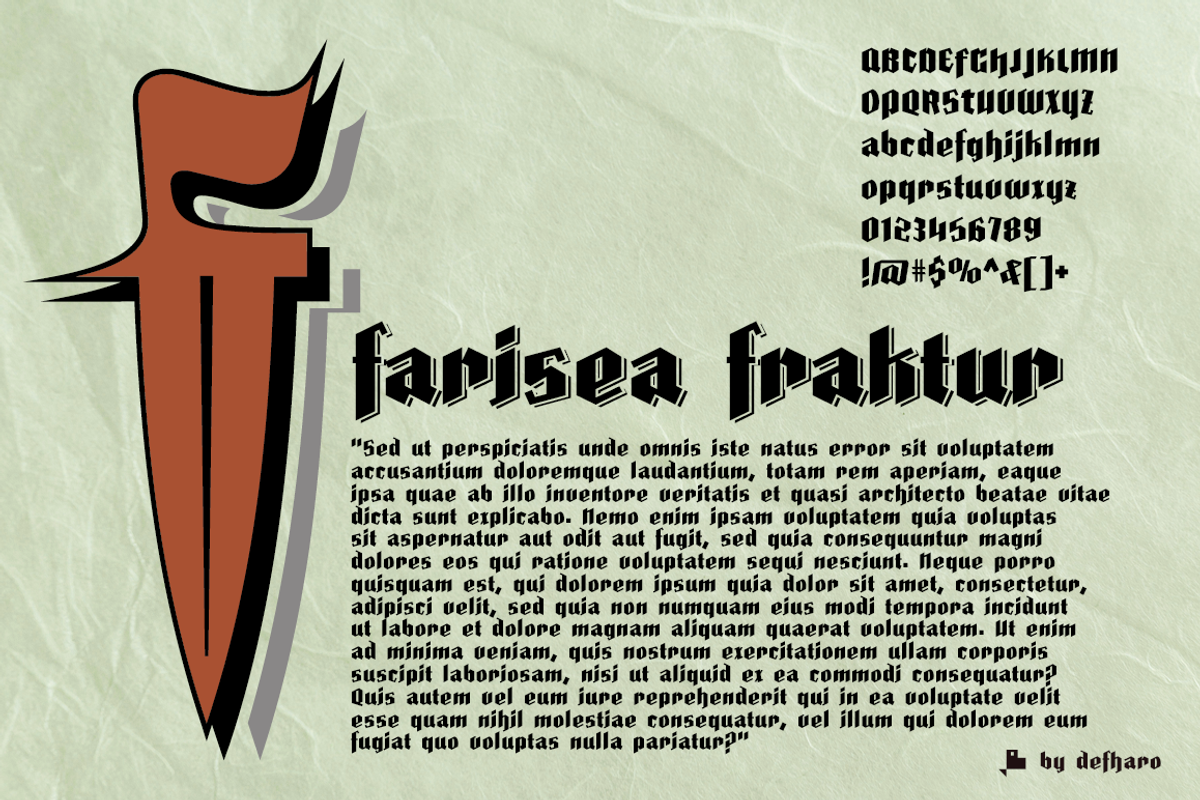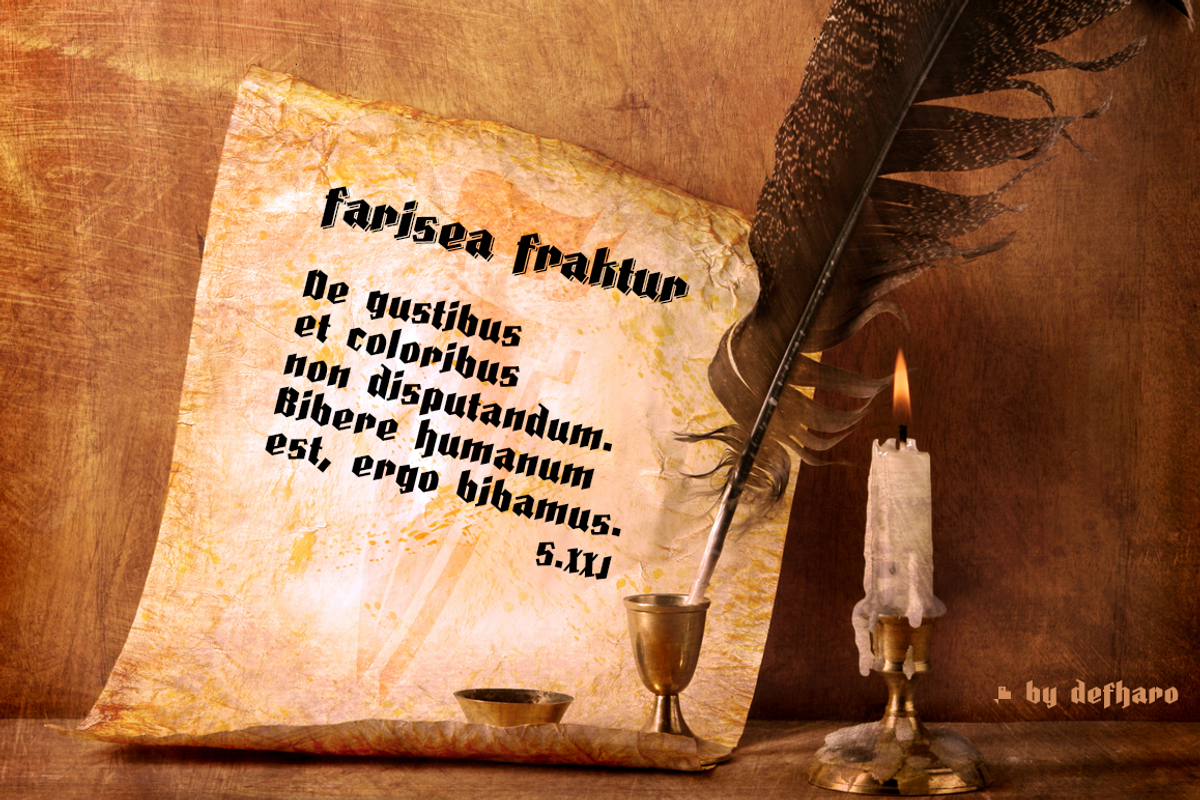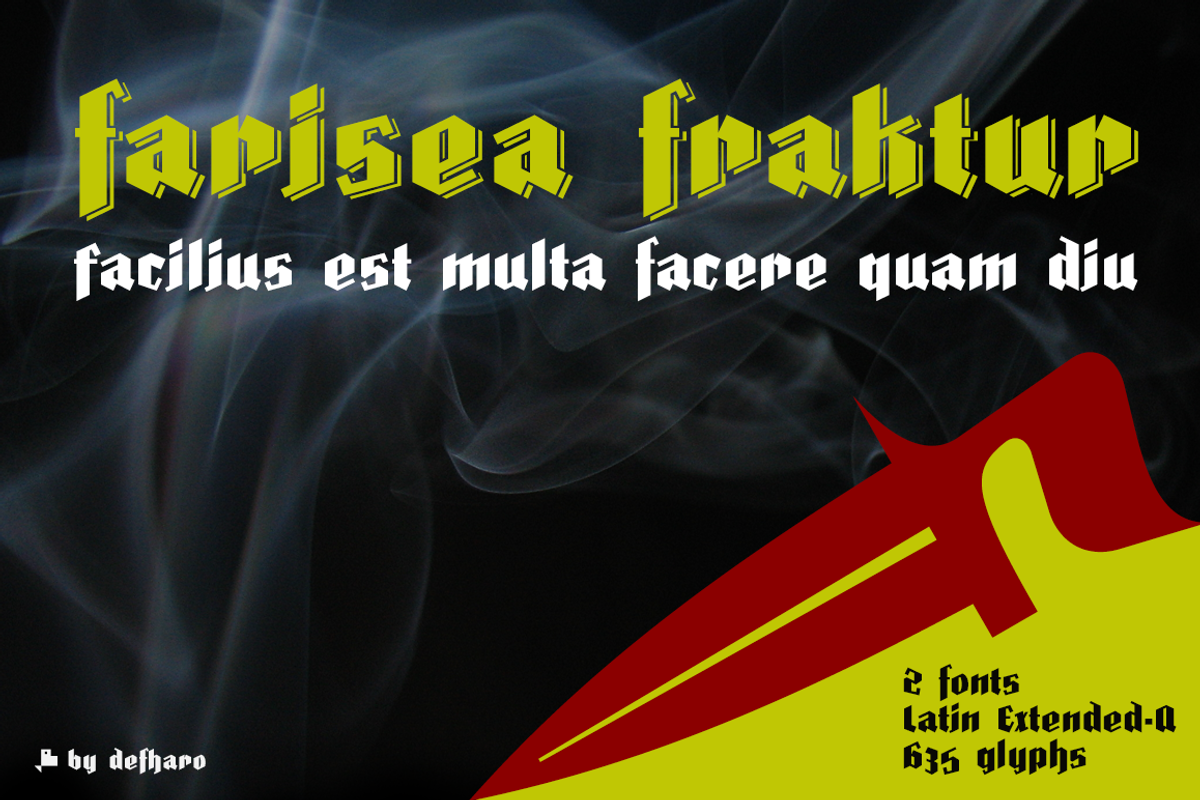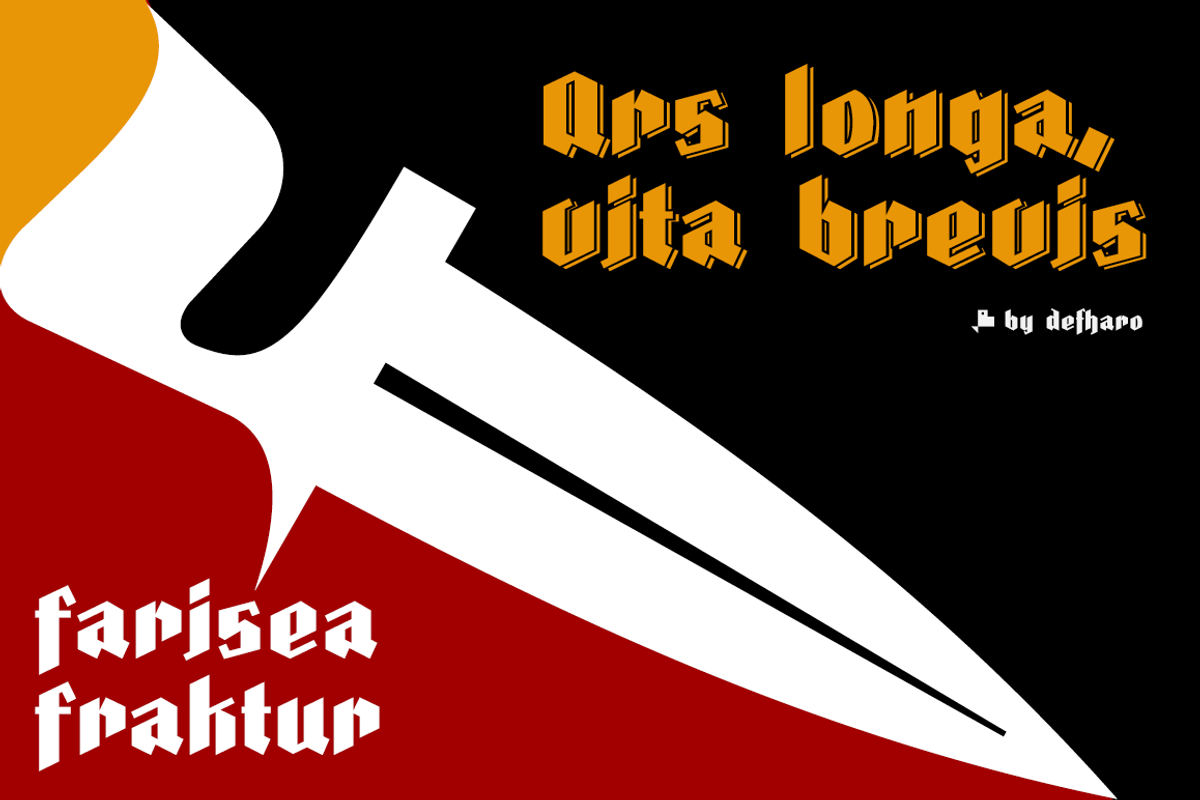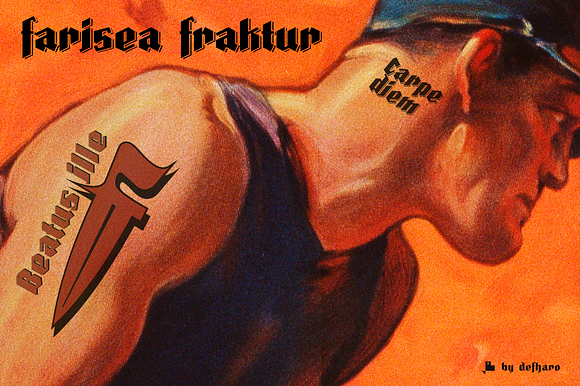
Farisea Fraktur -2 fonts-
Fraktur is a typographic style of the Latin alphabet derived from the Gothic writing that arose at the beginning of the XVI century and was popularized in Germany, Northern Europe and the Baltic countries.
These fonts are distinguished by their thick strokes and the angled profile produced by the pen. Farisea Fraktur is my modern version of this type of Fraktur fonts, without embellishments, the initial inclination is of 64 ° for the upper and lower ascending finials, it has a great contrast between antlers and a generous height of x, which gives the font in a square proportion.
Farisea Fraktur & Dark (2 fonts)
Farisea Fraktur includes the symbol of Bitcoin and currency symbols.